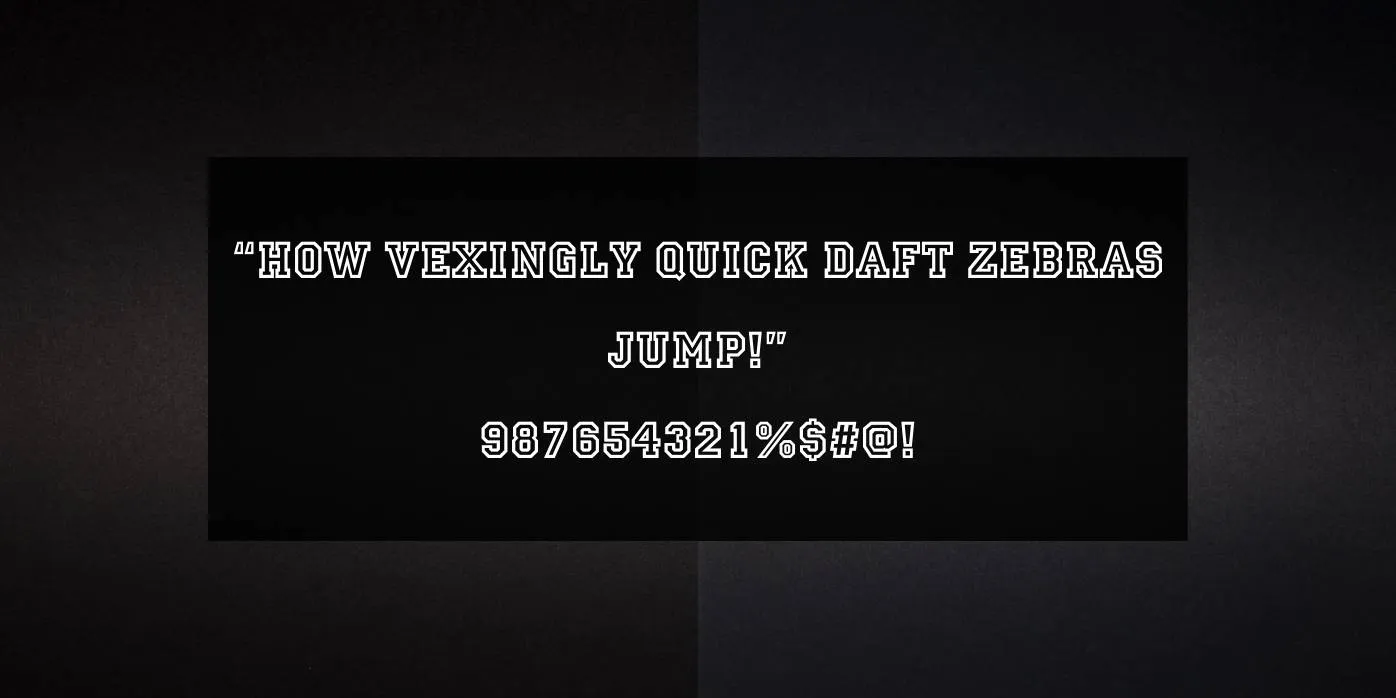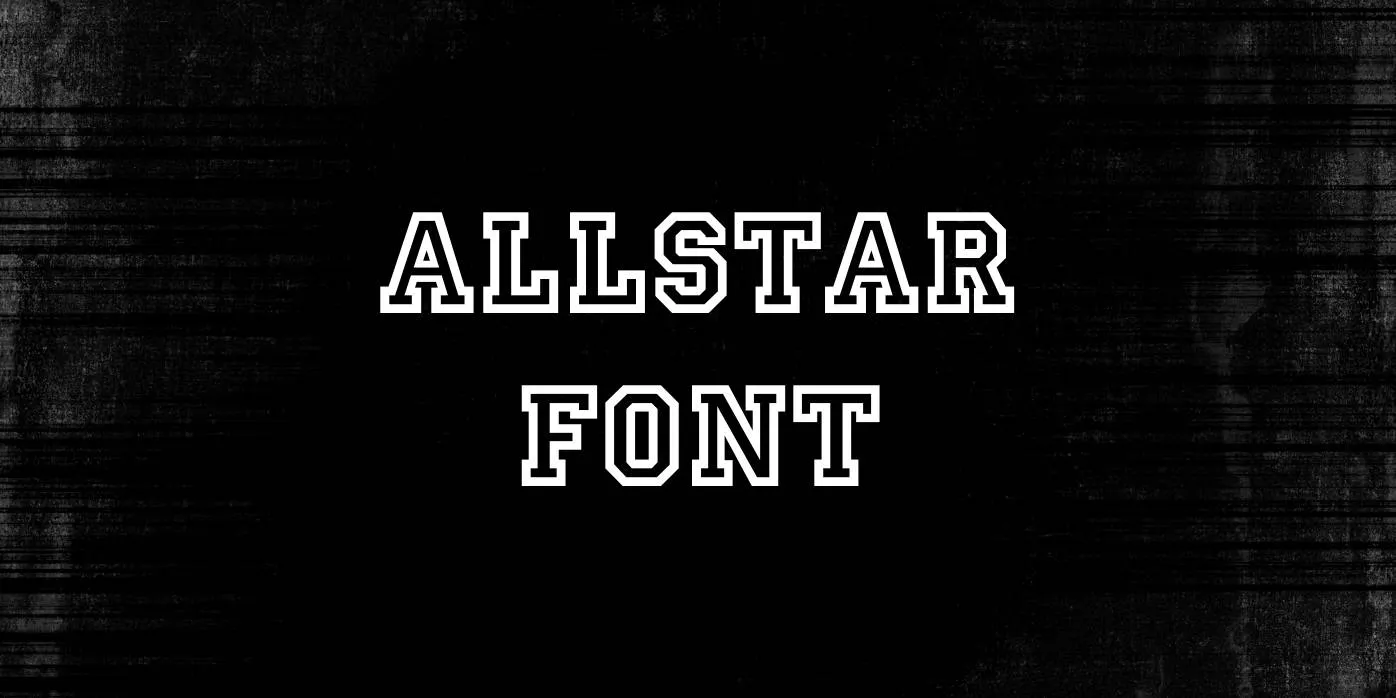
Allstar Font
Allstar Font belongs to the display family. This stunning family was designed by Altsys Fontographer. This font was first released in 1998. Allstar family currently consists of 4 fonts including Regular, Italic, Bold, and Bold Italic.
The Allstar font is perfect for headlines and short texts. It will work great for web design, graphic design, branding, advertising, and more. This awesome typeface is best for all programs like Canva, Adobe, and others. For more classic features, you will have to use its alternative harabara bold mais font which has the same features.
Allstar Font is a great choice for anyone looking for a bold and powerful font. This family is perfect for making a statement and catching attention. So, if you’re looking to make a big impact, this font is the way to go. You can also utilize the facility of its generator tool.